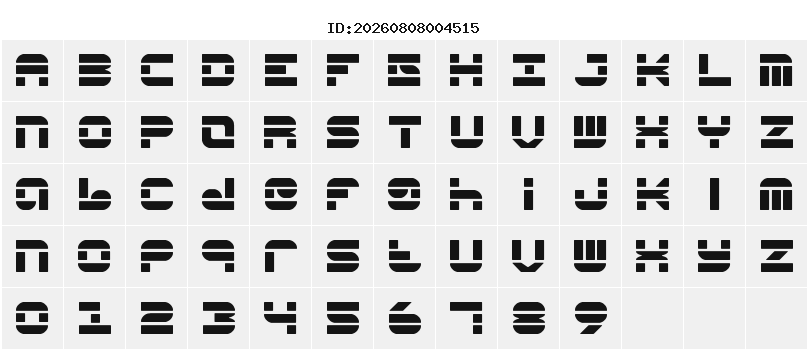
• Font Name: Pseudo BRK
• Font ID: AENIGMA FONTS: Pseudo BRK
• Full Font Name: Pseudo BRK
• Version: 1.2
• PostScript Name: PseudoBRK
• Character Count: 77
• Designer: ÆNIGMA FONTS - Brian Kent
• Manufacturer: ÆNIGMA FONTS
About Pseudo BRK.ttf
Pseudo BRK.ttf is a modern, elegant sans-serif font designed for ultimate readability and visual harmony. Perfect for branding, headlines, web design, and print materials.